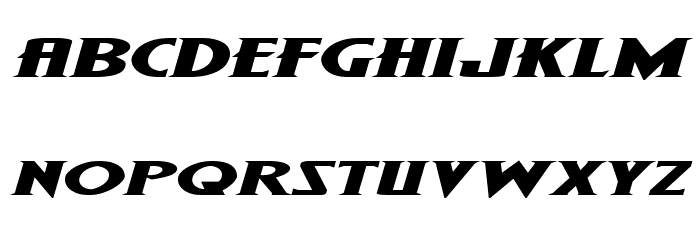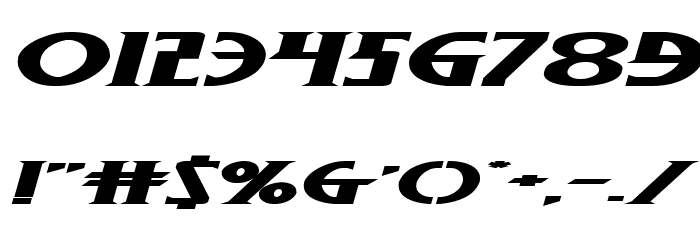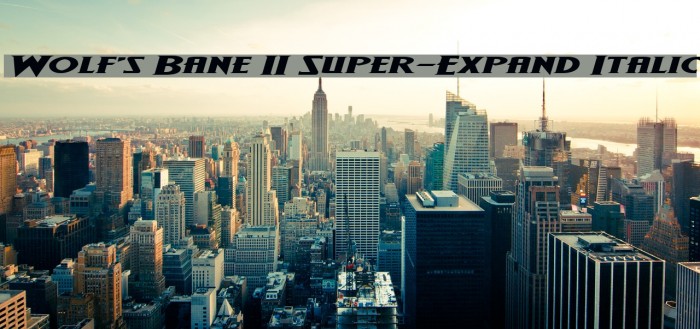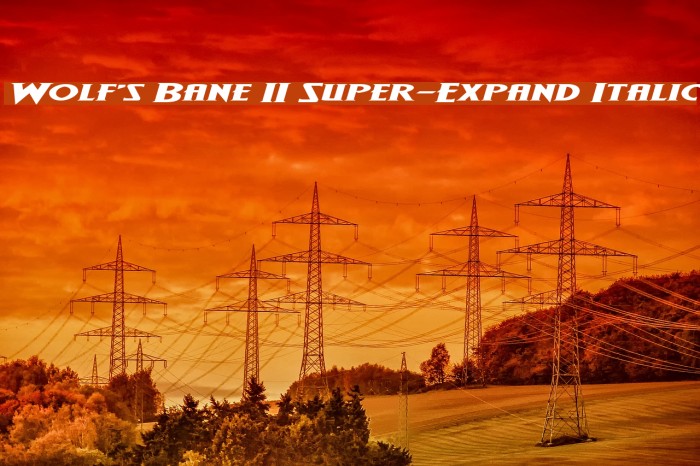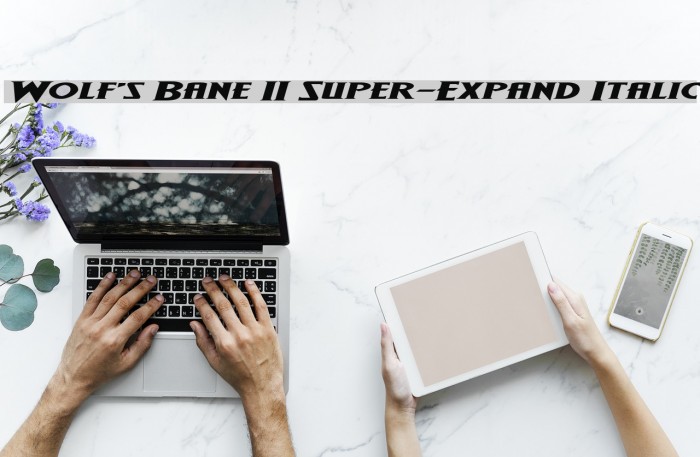
Wolf's Bane II Super-Expand Italic Font
This font features a bold and dynamic style with a strong slant, giving it an italicized appearance. The characters are wide and expansive, with sharp angles and a futuristic feel. The uppercase letters are particularly striking, with a sense of motion and energy. The numbers and special characters maintain this bold and angular design, ensuring consistency across all elements. The font's unique style makes it stand out, suitable for projects that require a modern and impactful look.
A bold, italicized font with wide, angular characters and a futuristic style.
- Proposed Projects: Ideal for use in sci-fi themed designs, video game titles, movie posters, and branding that requires a modern and energetic aesthetic.